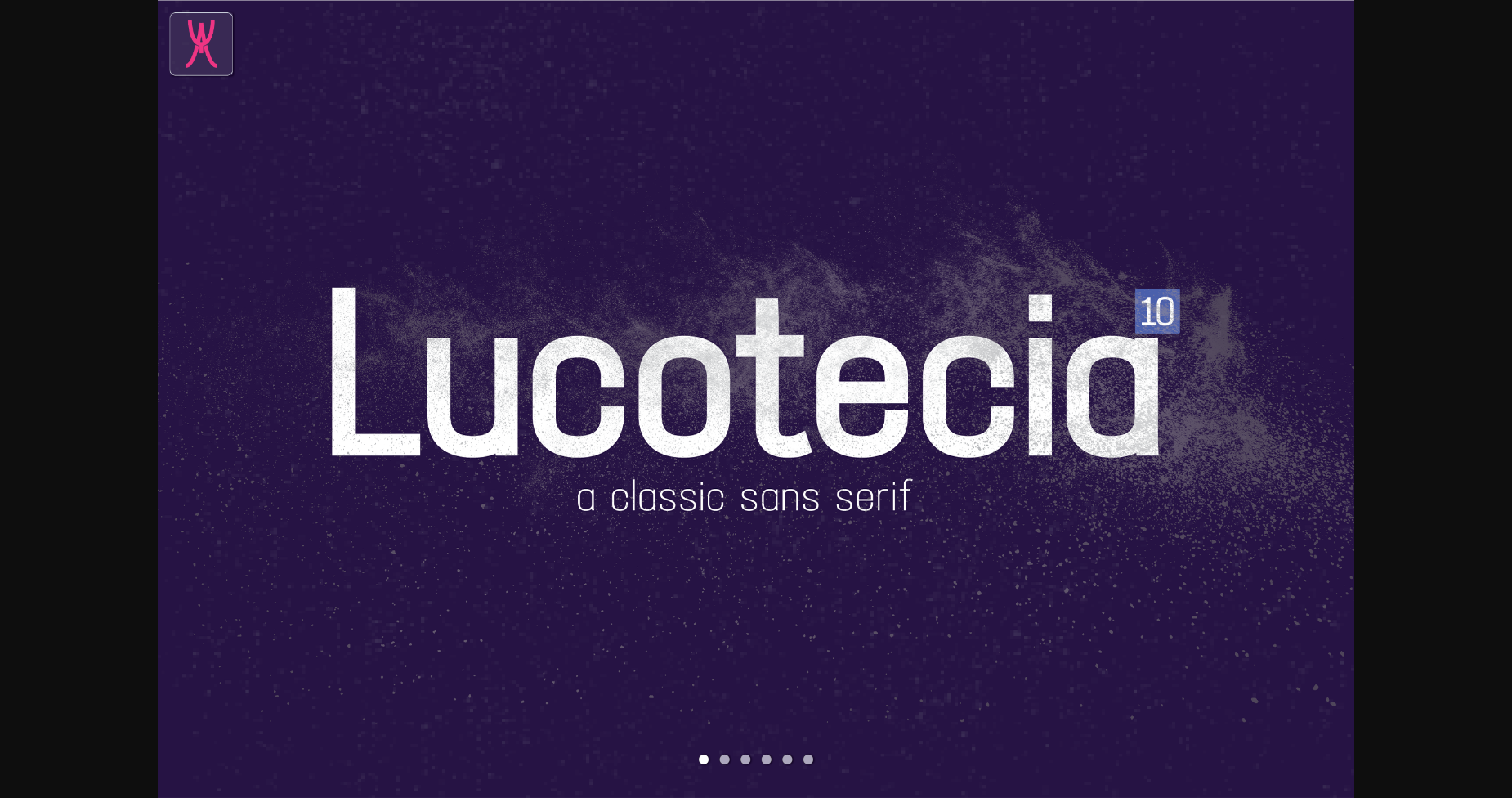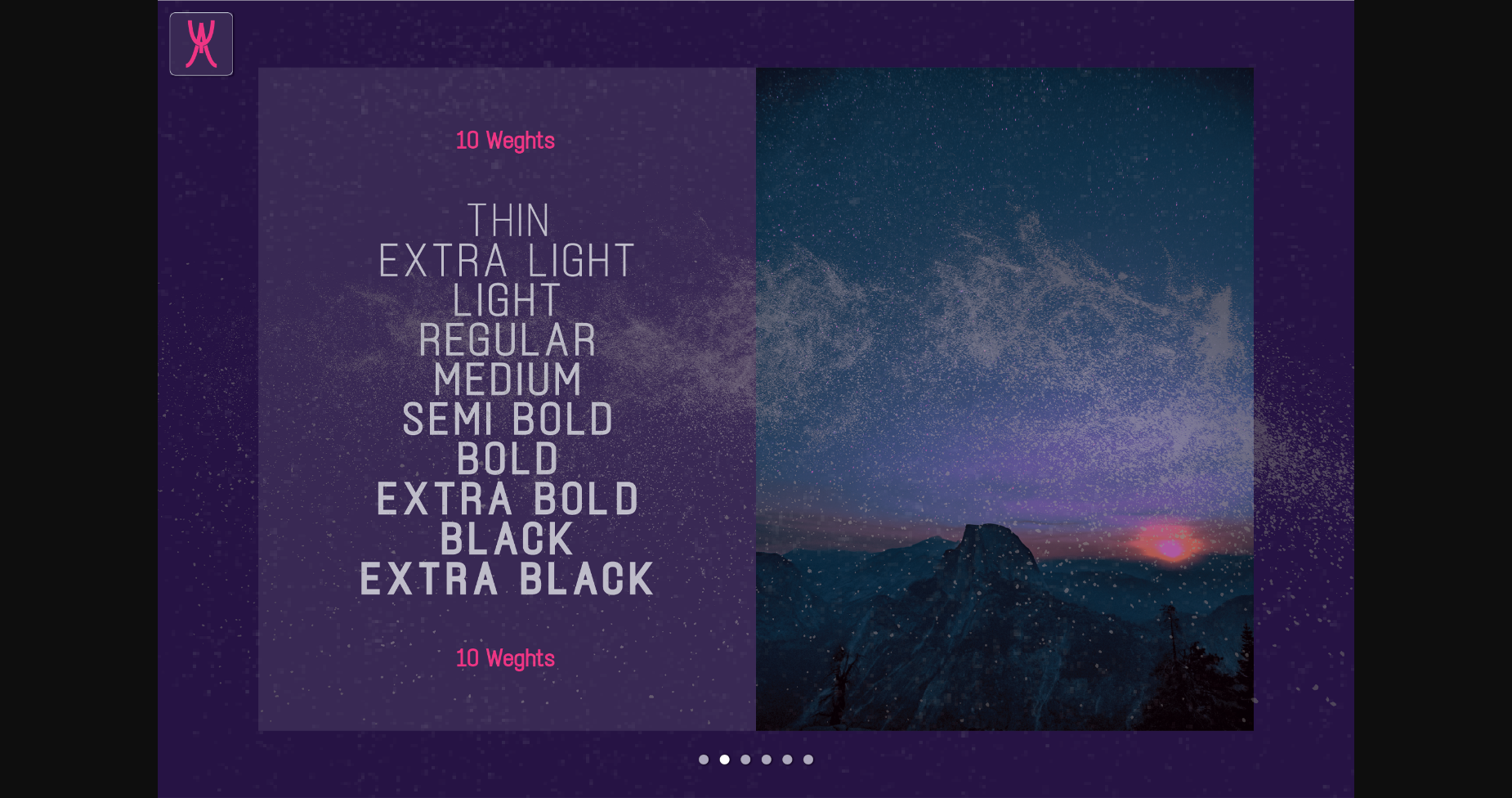
About Lucotecia Font
Lucotecia is a slick sans serif font perfect for any project you wish to create. Add it to any of your designs, and you will notice how it makes them stand out!